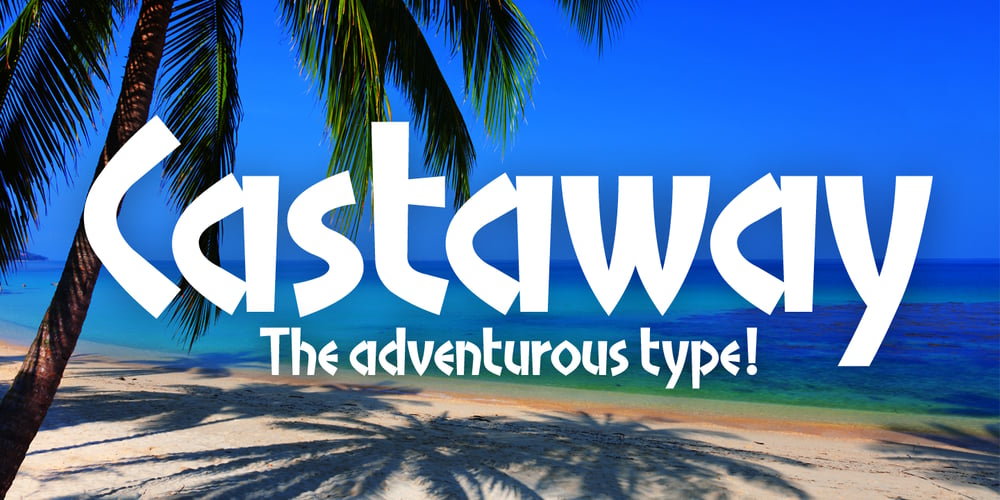
Castaway
Castaway font
Castaway Font Family was designed by Keith Tricker and published by Studio K. Castaway contains 2 styles and family package options. Fun, footloose and fancy free, Castaway is a font family that knows no boundaries: equally at home in Naples and Nairobi, Rimini and Rio, Tijuana and Timbuktu. It was inspired by those ‘far away places with strange sounding names’, and will bring a touch of the exotic to tourist and travel promotions, and a breath of fresh air to any graphics project.